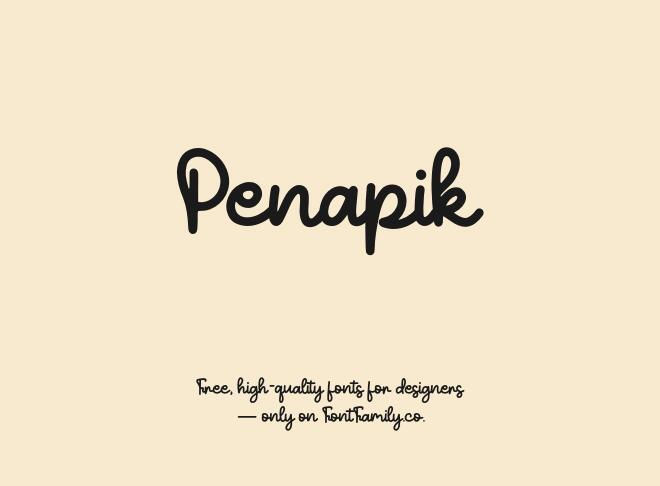
Penapik Font
Introducing the Penapik Font, a modern handwritten typeface with a brush touch. This font exhibits a unique blend of elegance and modernity, making it a perfect choice for designs that seek to convey a sense of style and sophistication. The Penapik Font's brush strokes add a natural, organic touch, making it ideal for logos, branding, wedding invitations, and other designs that require a personal, handwritten touch. Compared to other fonts, Penapik Font stands out with its unique blend of modernity and elegance, offering a unique aesthetic that's hard to find elsewhere. It's a versatile font that can adapt to a variety of design contexts, making it a must-have for designers of all types.